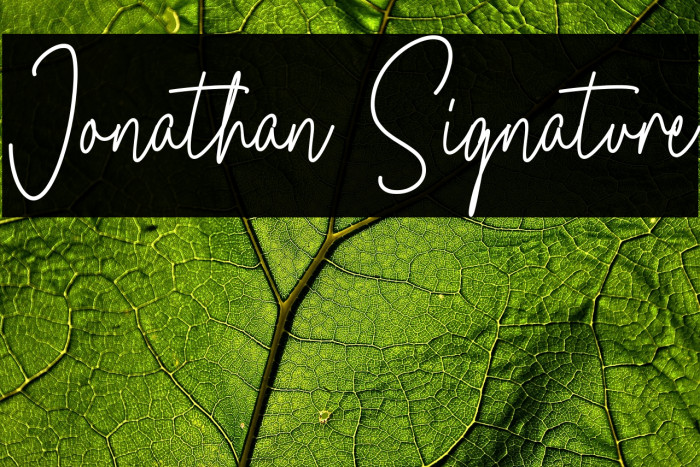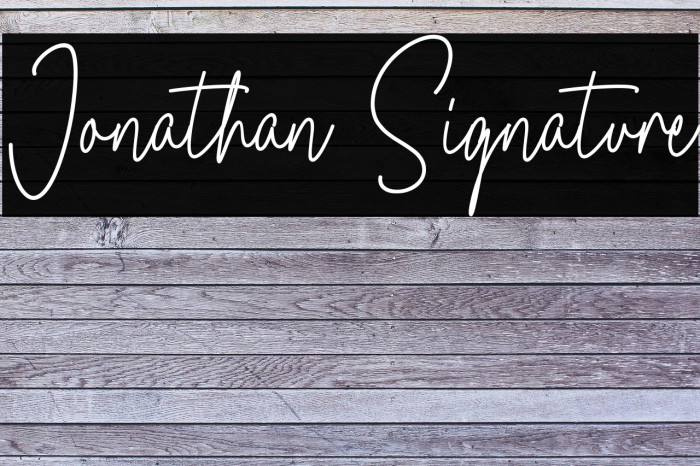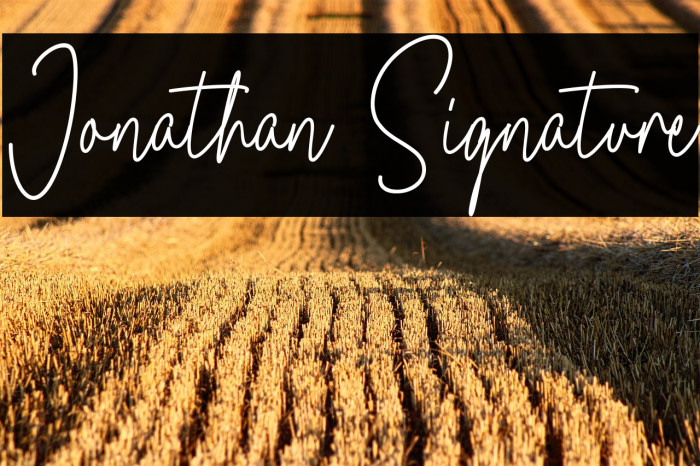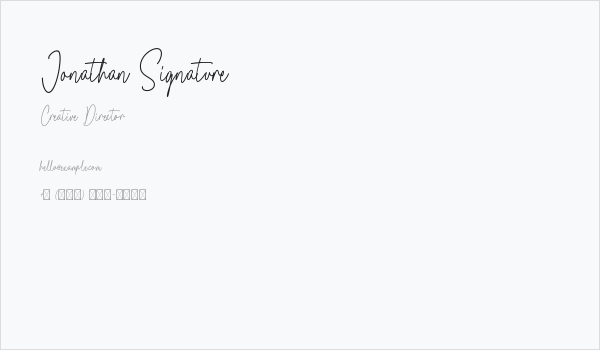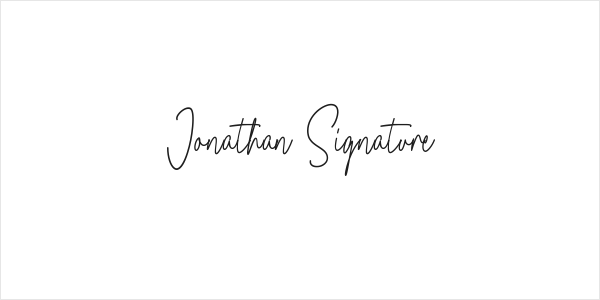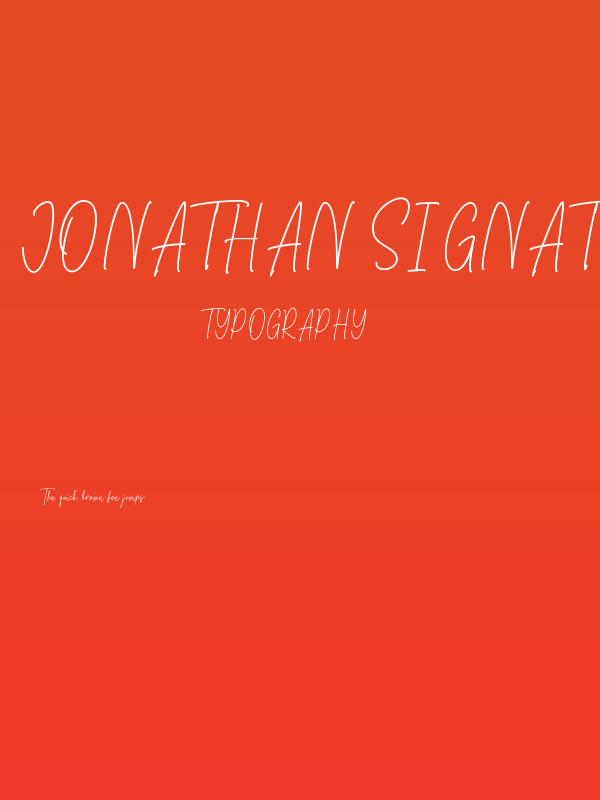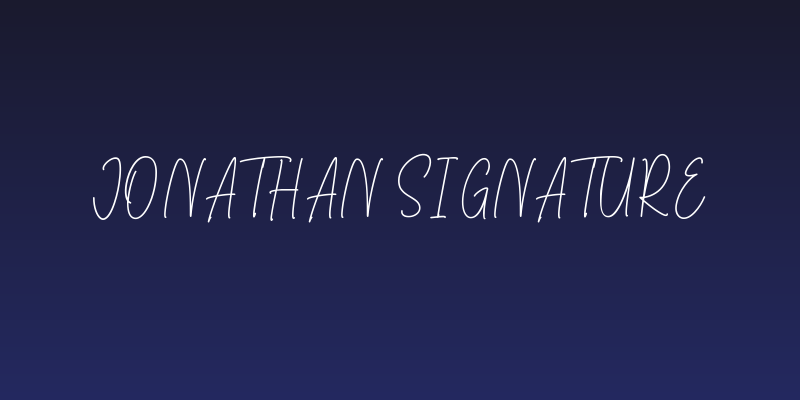
Jonathan Signature Font
Jonathan Signature Description
This font exudes a casual and elegant handwritten style, characterized by its fluid and connected letterforms. The uppercase letters are tall and slightly narrow, giving a sense of sophistication and grace. The lowercase letters maintain a consistent flow, enhancing the script-like appearance. The strokes are smooth and exhibit a medium contrast, with some letters featuring loops and swashes that add a decorative touch. The overall design is both modern and timeless, making it suitable for a variety of creative projects.